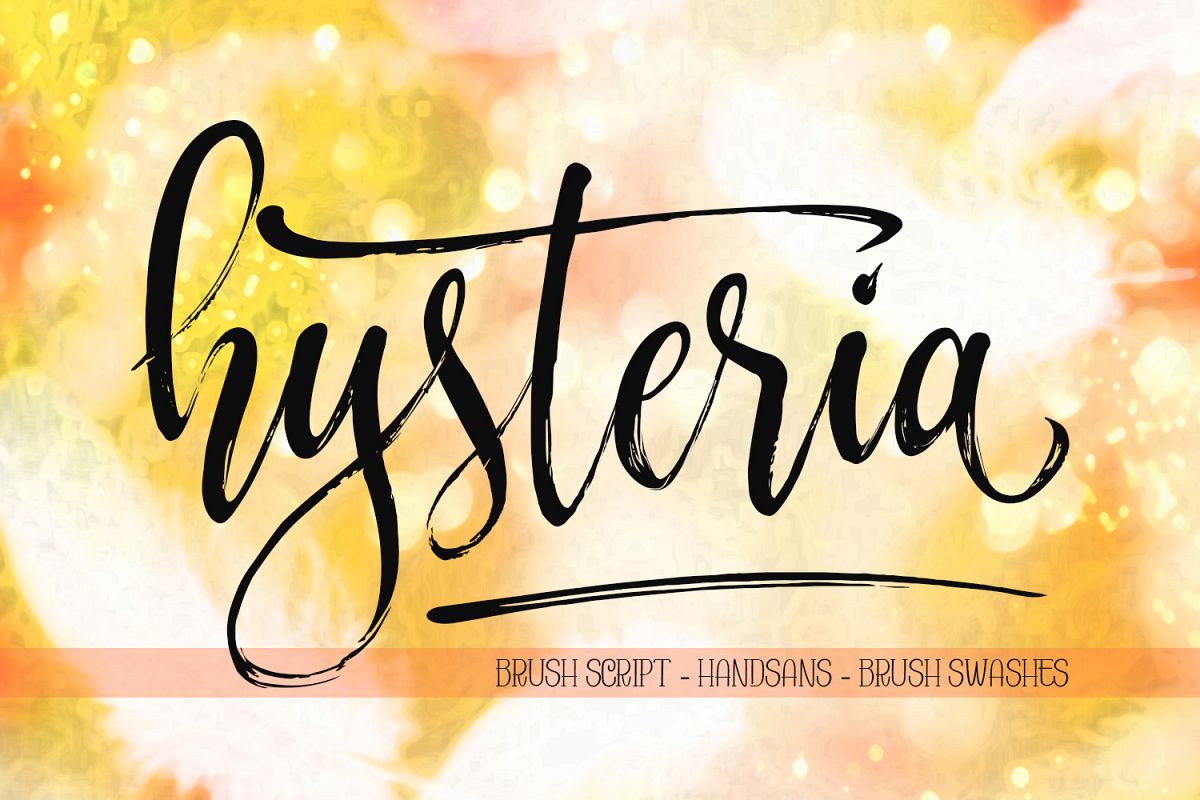
Hysteria
Hysteria Sans
Hysteria Sans.
Hysteria Swashes.
Hysteria Brush.
Hysteria Brush
Hysteria Brush comes with upper and lowercase characters, punctuation glyphs, numerals, web font, and supports international languages. Stylistic sets for several key lower case characters are also available. Perfect for logo marks, typographic quotes over photos, book covers and packaging design.